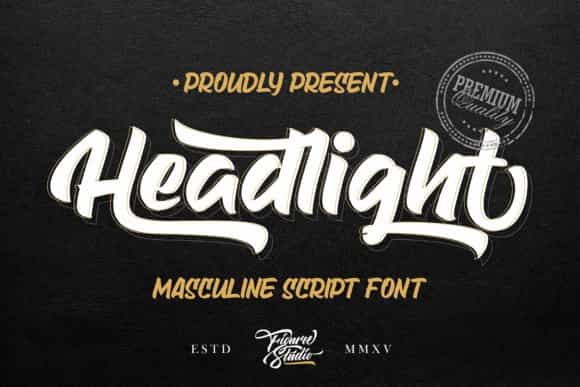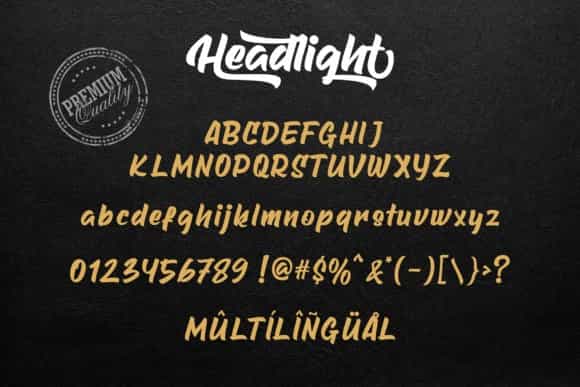
“Headlight” is a font script that is created by hand, it has been inspired by the classic posters. Comes with uppercase, lowercase, numerals, punctuations and so many variations on each character including OpenType alternates, common ligatures and also additional swash to let you design your designs according to your taste. The best for dealing with Logotype, Letterhead, Poster, Apparel Design and Label.